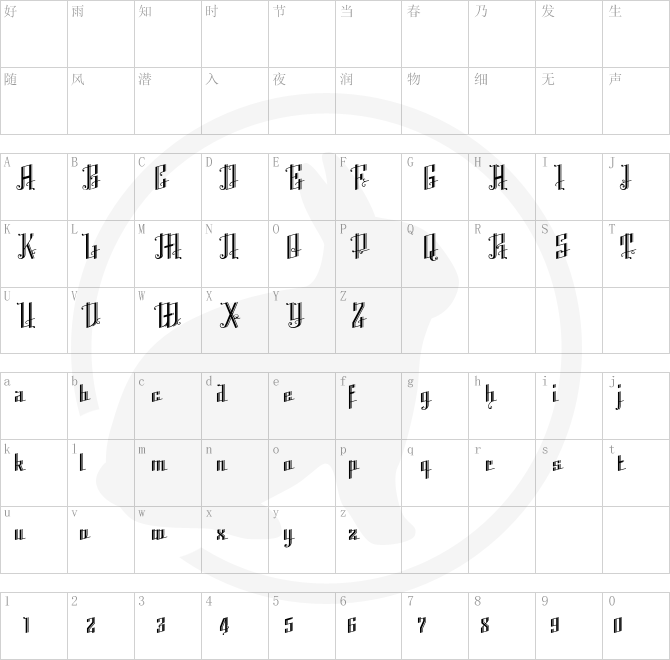
- Font Name:K22 Angular Text
K22-Angular-Text.otf is a very beautiful artistic font, K22-Angular-Text.otf is widely used in the design and printing of various books and pictures,K22-Angular-Text.otf has a strong visual impact,K22-Angular-Text.otf is a commonly used font in newspapers, magazines and books, and is used in posters, e-commerce Poster design, store design, logo design, font design and other fields.K22-Angular-Text.